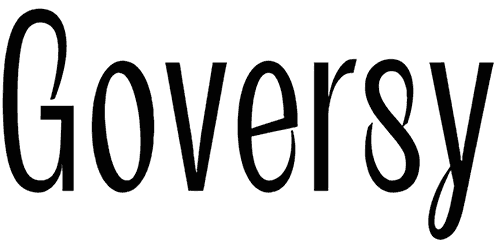
Goversy Font
A sans serif font such as Goversy has the true potential to become your superior game-changer in the middle of designing high-end graphic content like magazines, applications, e-books, flyers, or the user interface of web pages.
Its simple form can evoke a sense of minimalism, momentum, modernity, or comfort in the audience’s minds and convince them to follow your visual projects. Considering its limitless advantages, not supporting numbers will not be a serious problem.